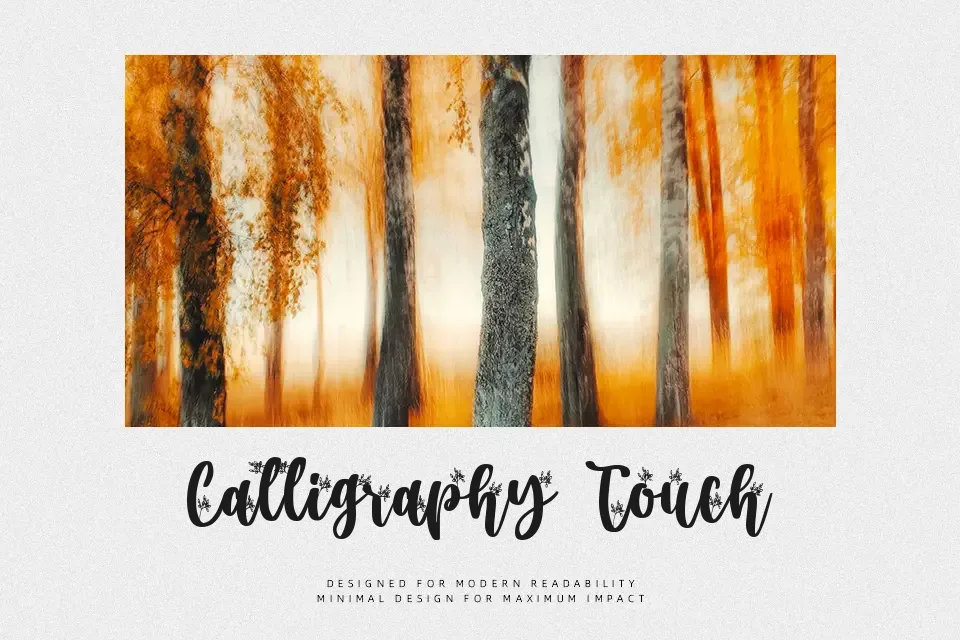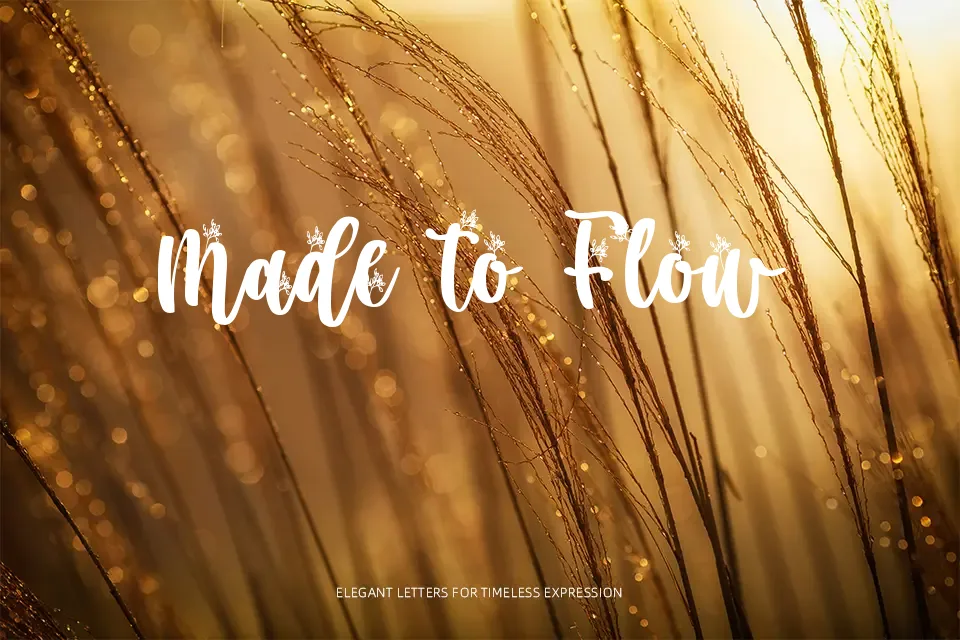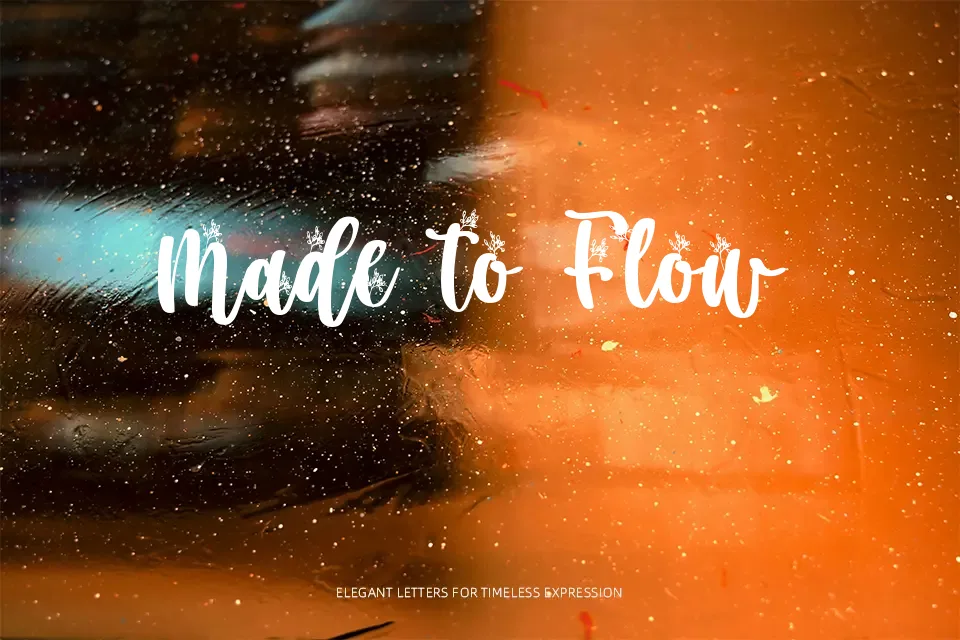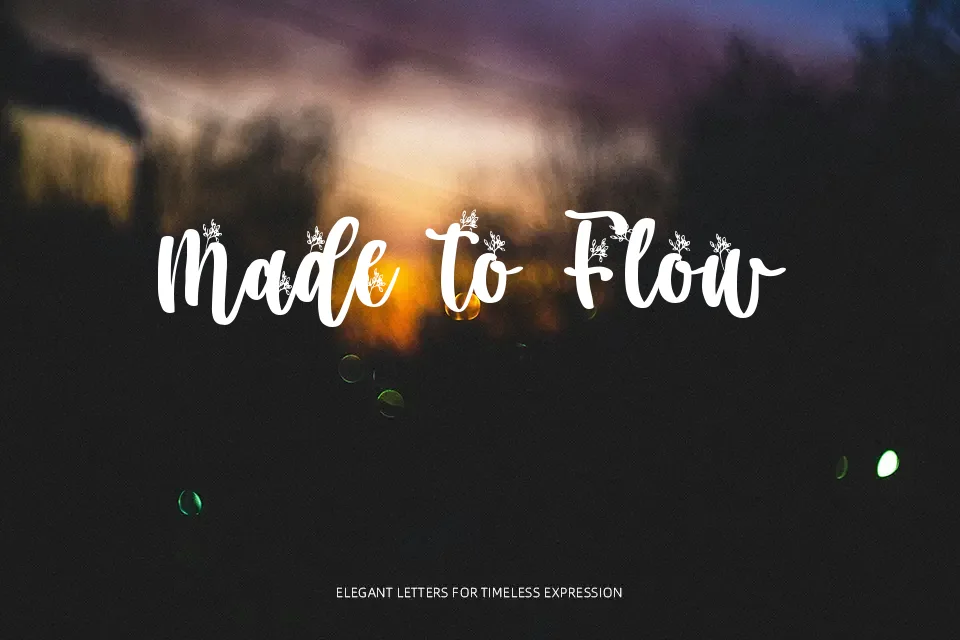
Secret Nature Font
Secret Nature Font demonstrates high visual impact through calligraphic lowercase strokes paired with leafy foliage interwoven into each capital letter. The letterforms exhibit moderate stroke contrast, smooth connecting joins, and balanced proportions across the lowercase alphabet. Medium character spacing allows the flowing terminals to connect naturally without causing visual congestion in display lines. The typeface performs best when displayed at larger sizes where the delicate leaf structures remain crisp and legible. However, the ornate capitals and cursive joins reduce reading comfort in continuous body copy, and intricate flourishes may blur in small caption layouts. For event stationery, product branding, and magazine titles, the design offers distinctive decorative charm.
Best For: wedding stationery, botanical packaging, greeting card headlines, boutique branding
Not Ideal For: continuous body text, small interface labels, dense editorial layouts, technical documentation
Perfect for branding, headline, and invitation, with a artistic and decorative style.